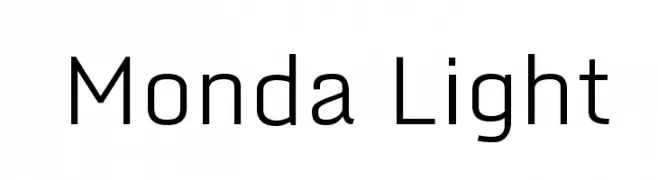
A modern, geometric sans-serif font with clear, balanced characters.
A modern, geometric sans-serif font with balanced spacing and clear readability.
A clean, modern sans-serif typeface with geometric letterforms and consistent stroke width.